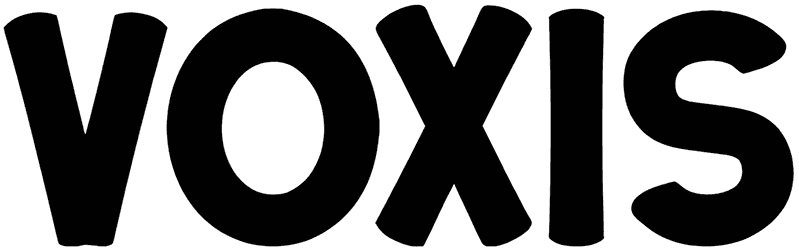
Voxis Font
Introducing Voxis, a striking sans-serif font with a bold, neat, and simple appearance. It offers a modern, cheerful touch to any of your creative designs and makes them stand out from the rest. This font comes with a full set of characters and good readability. It can be used for store signs, album covers, party flyers, movie posters, gift cards, and more.